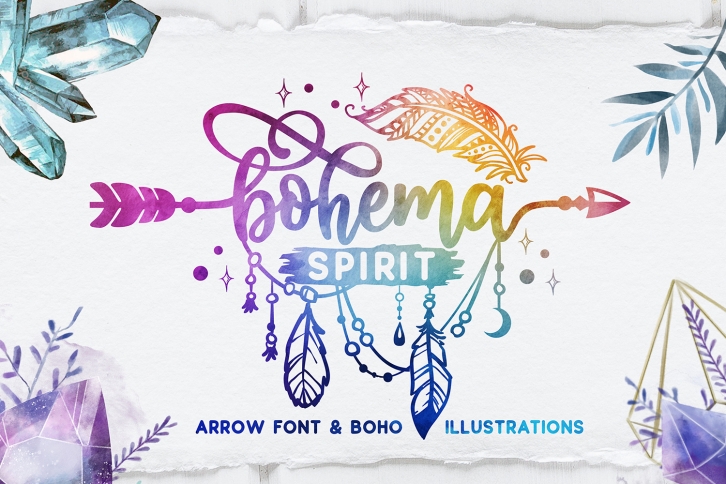
Bohema Spirit and illustrations is a beautiful font that was designed by BlackCatsMedia. It's a great choice for designers and creatives who need such a font. It was released on March 21, 2019 and the file size is 15.4 MB. Bohema Spirit and illustrations may give a more youthful, expressive and casual look to your project. It is a very beautiful, refined, elegant, and high-quality font.